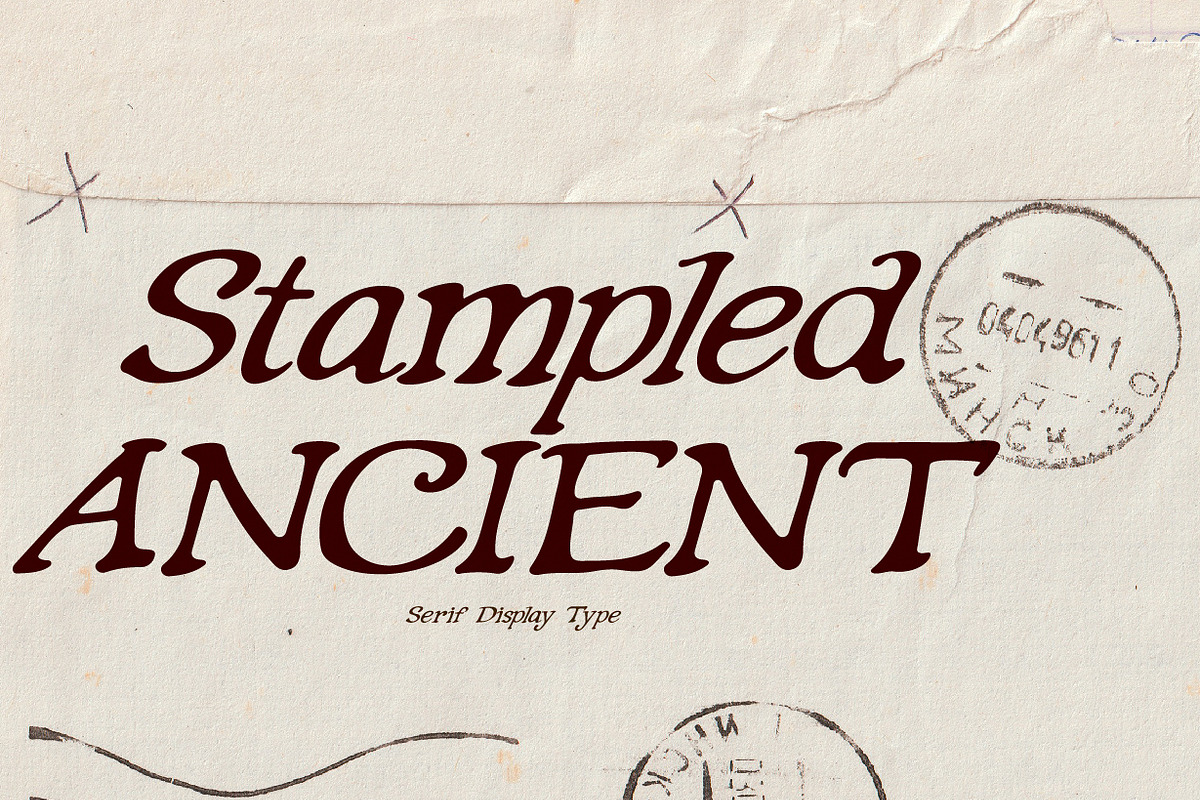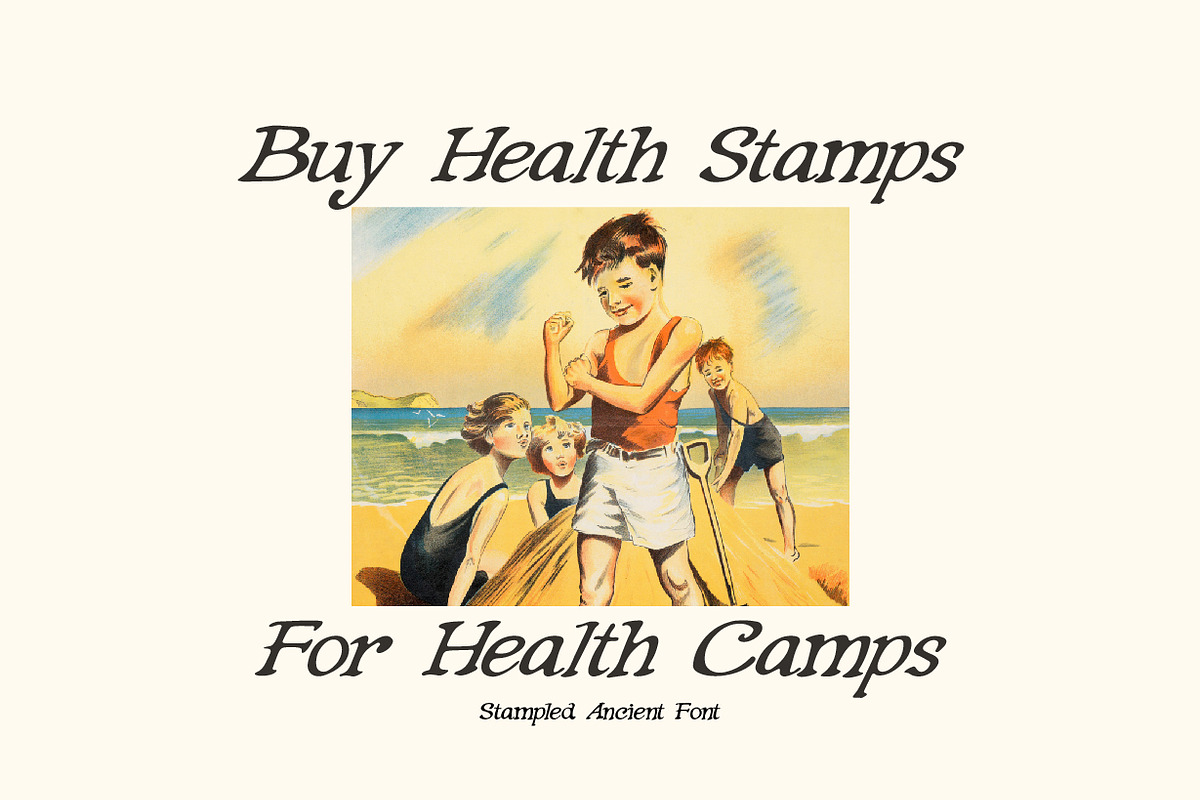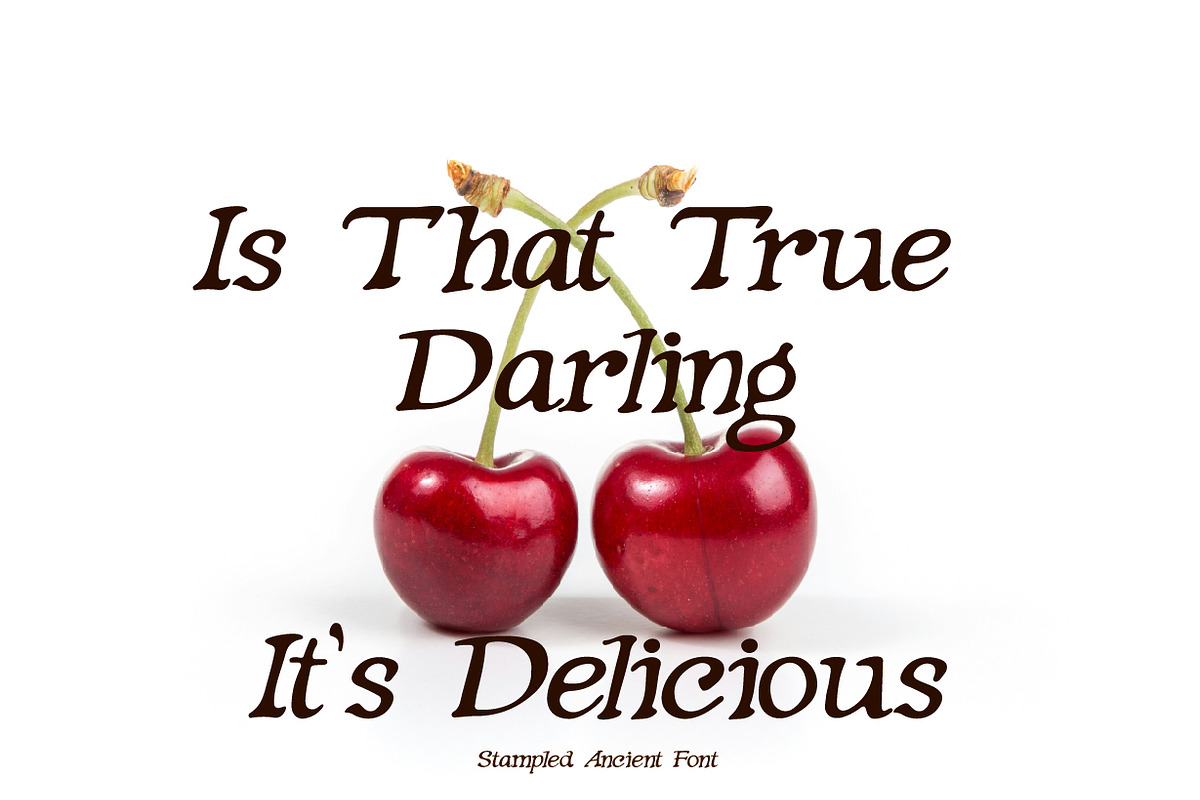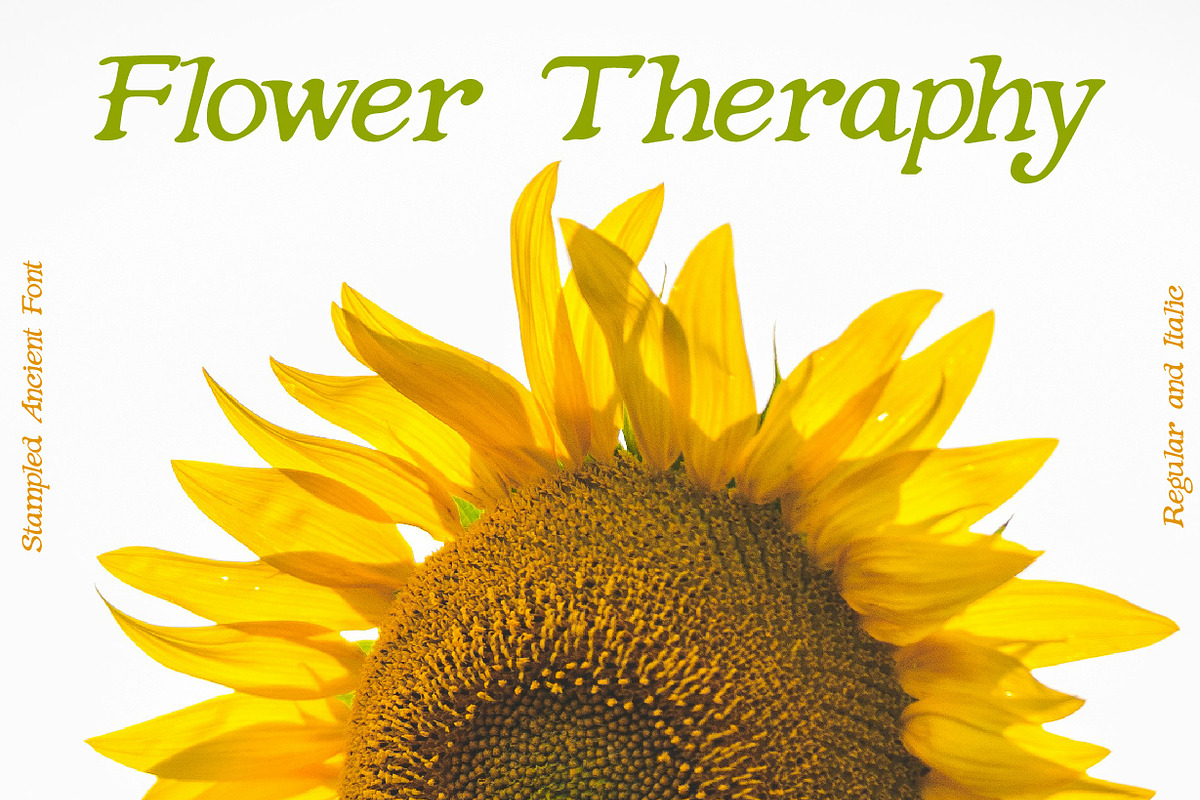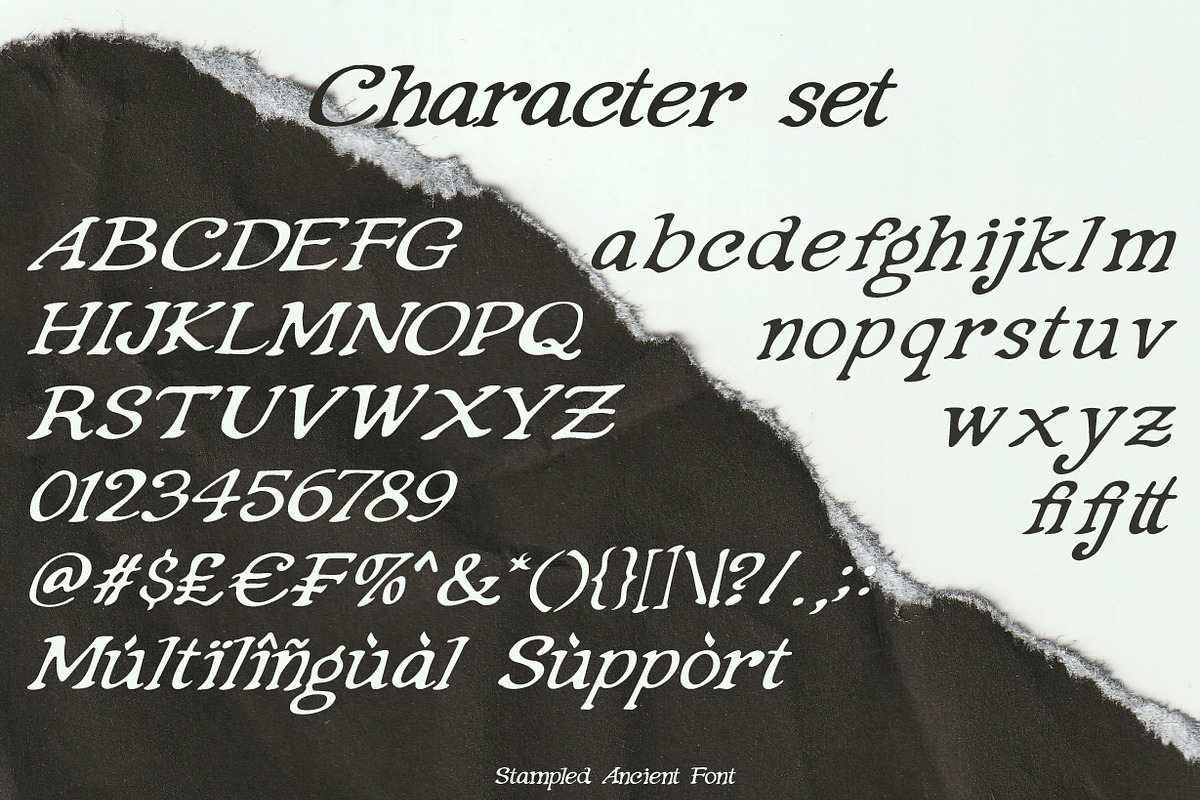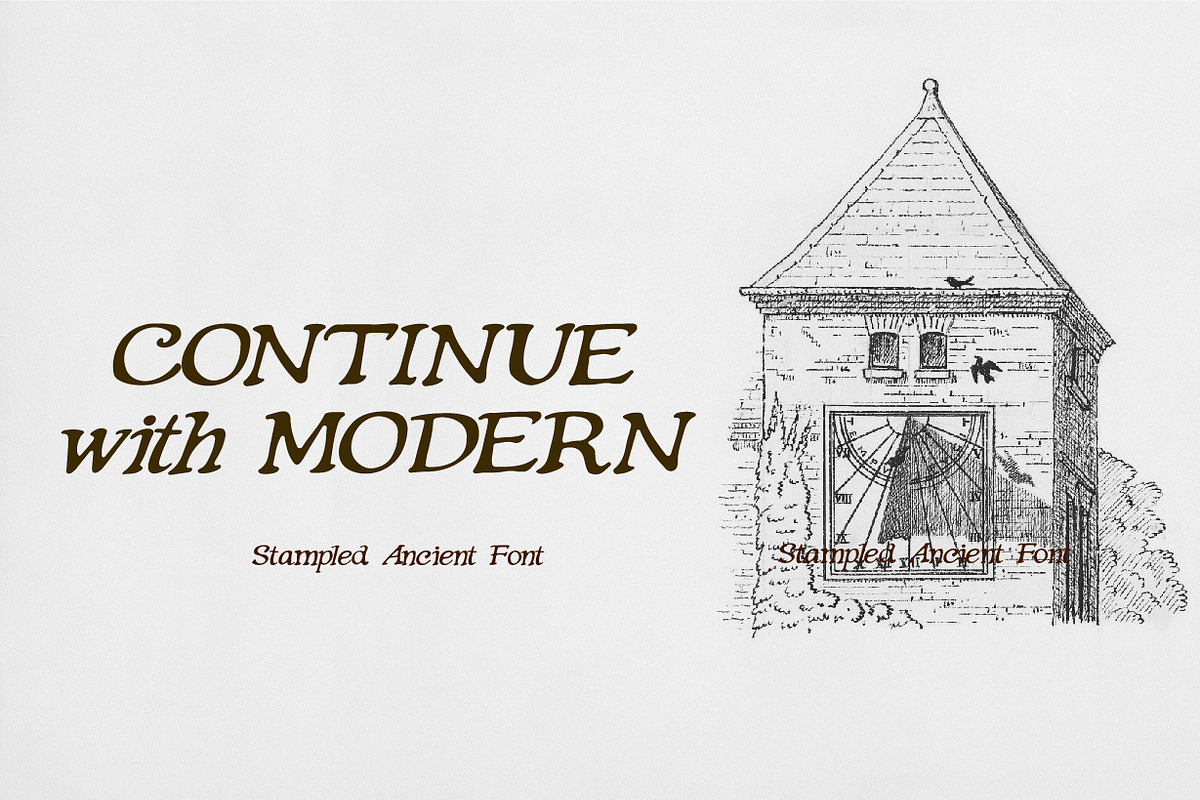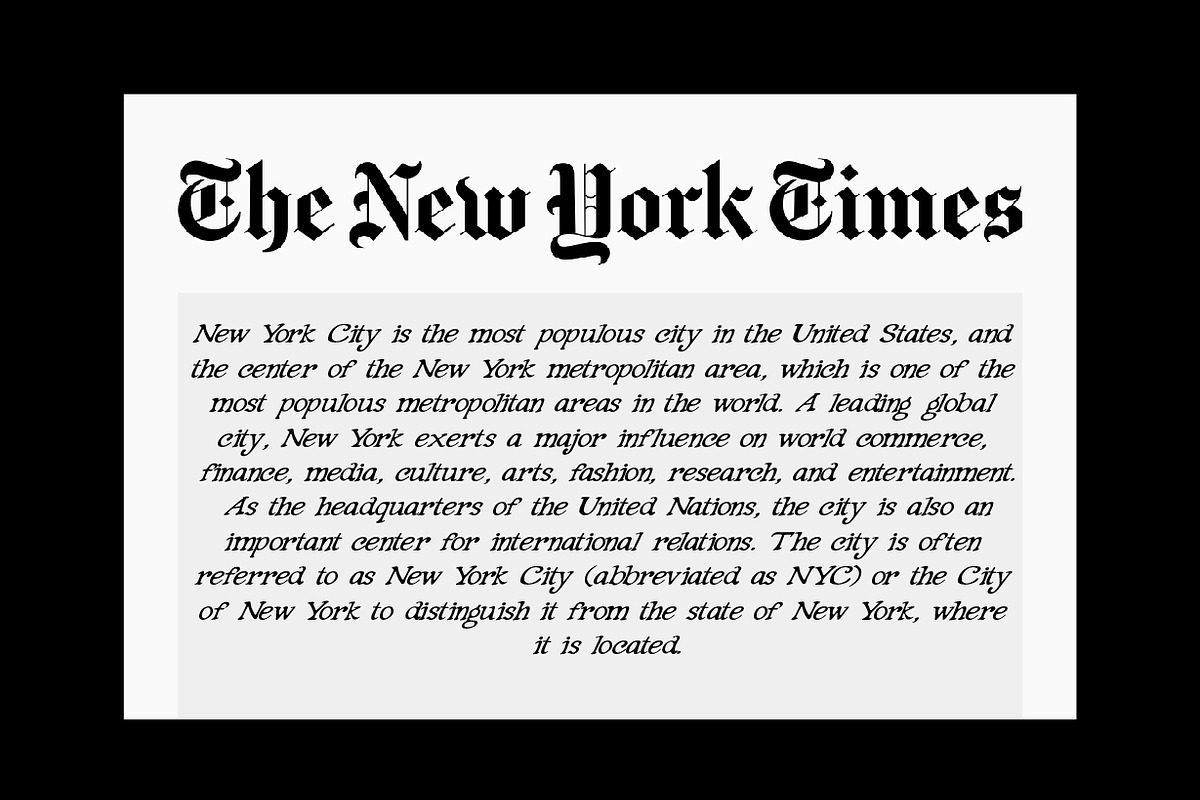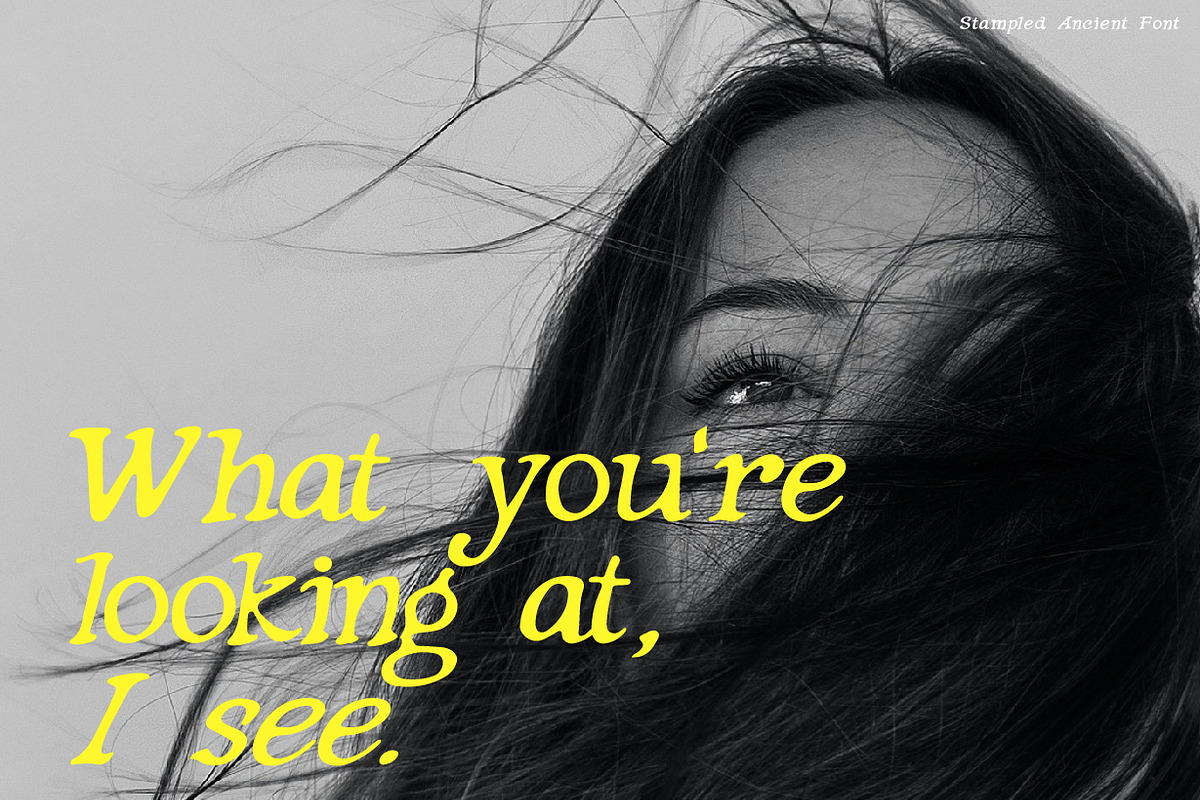
Stampled Ancient - Display Serif
Introducing Stampled Ancient which has an ancient design and looks like a print. The font looks like a serif but the lines are irregular so it looks more natural. suitable for use in various media, book covers, posters, typography, promotions, and other digital media.